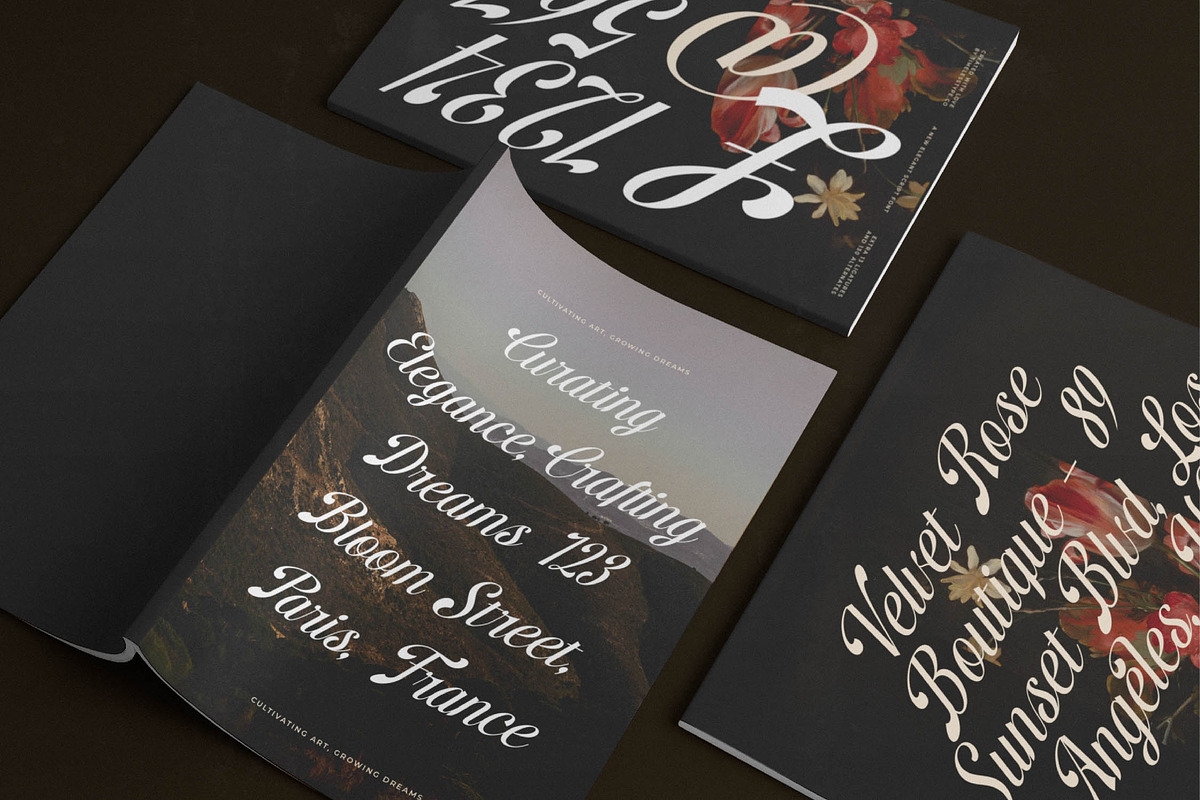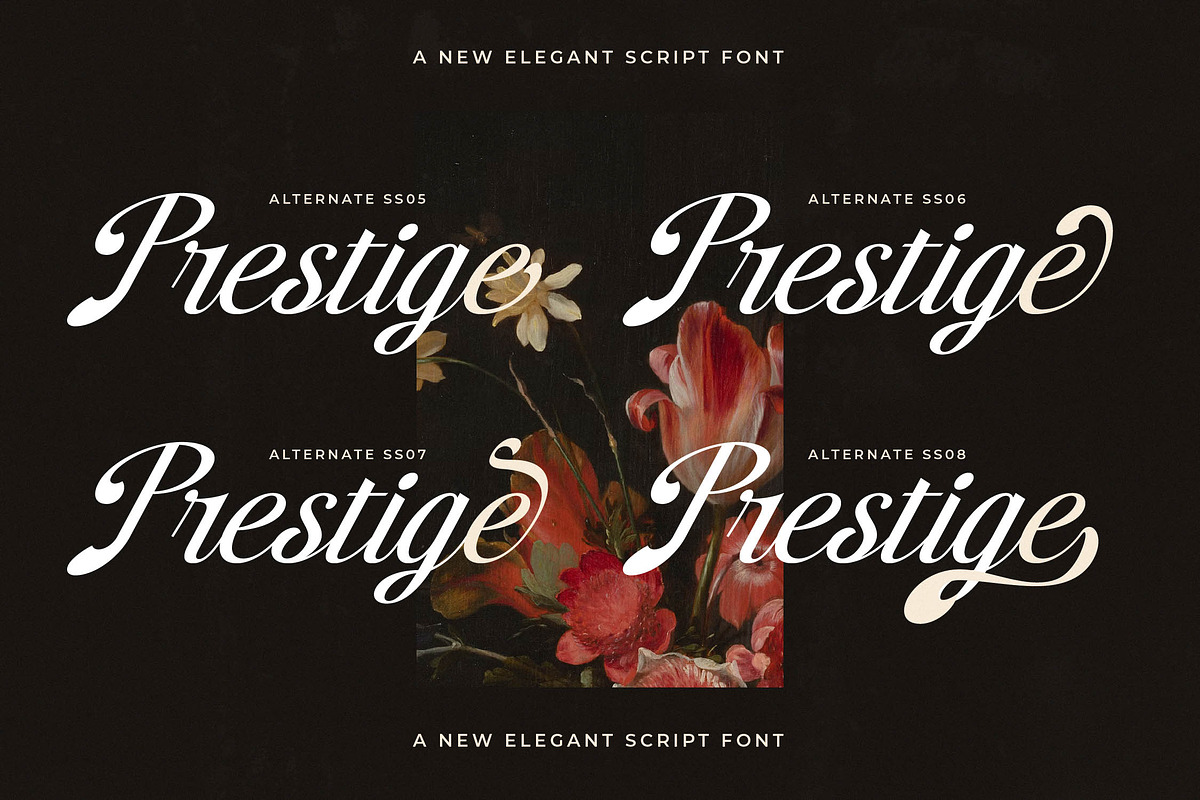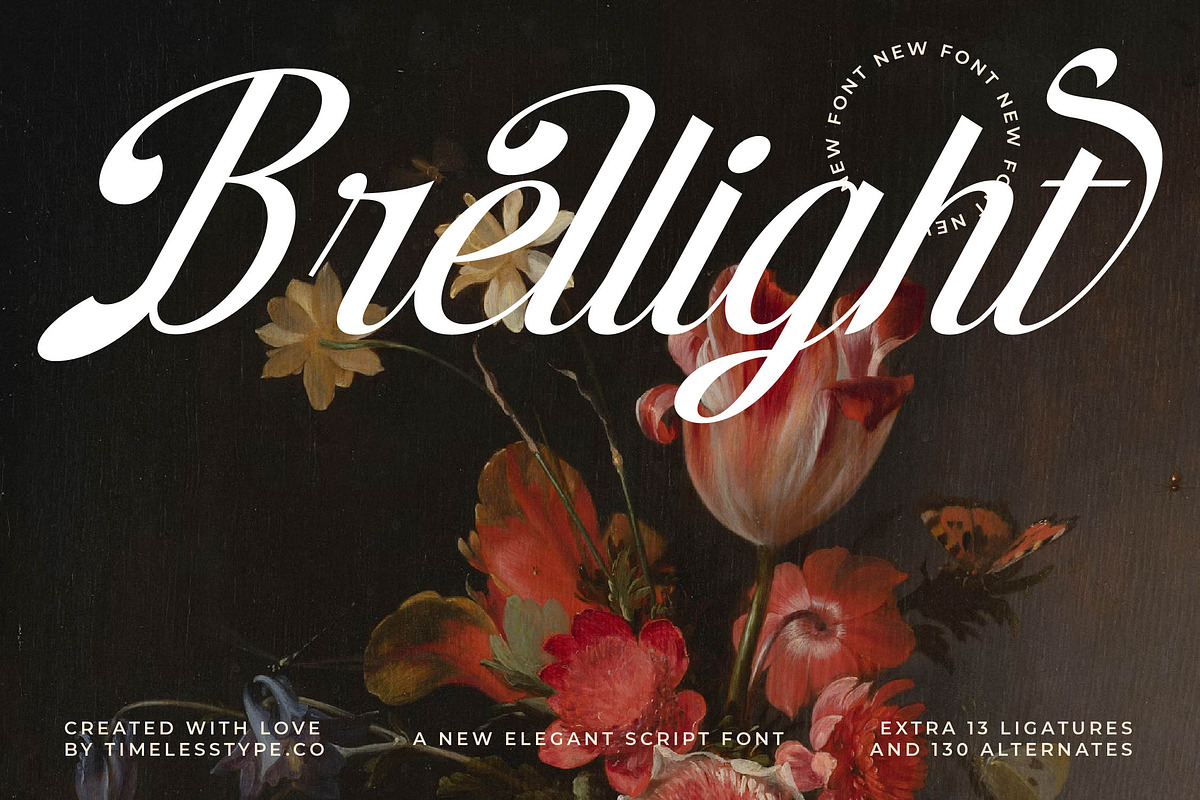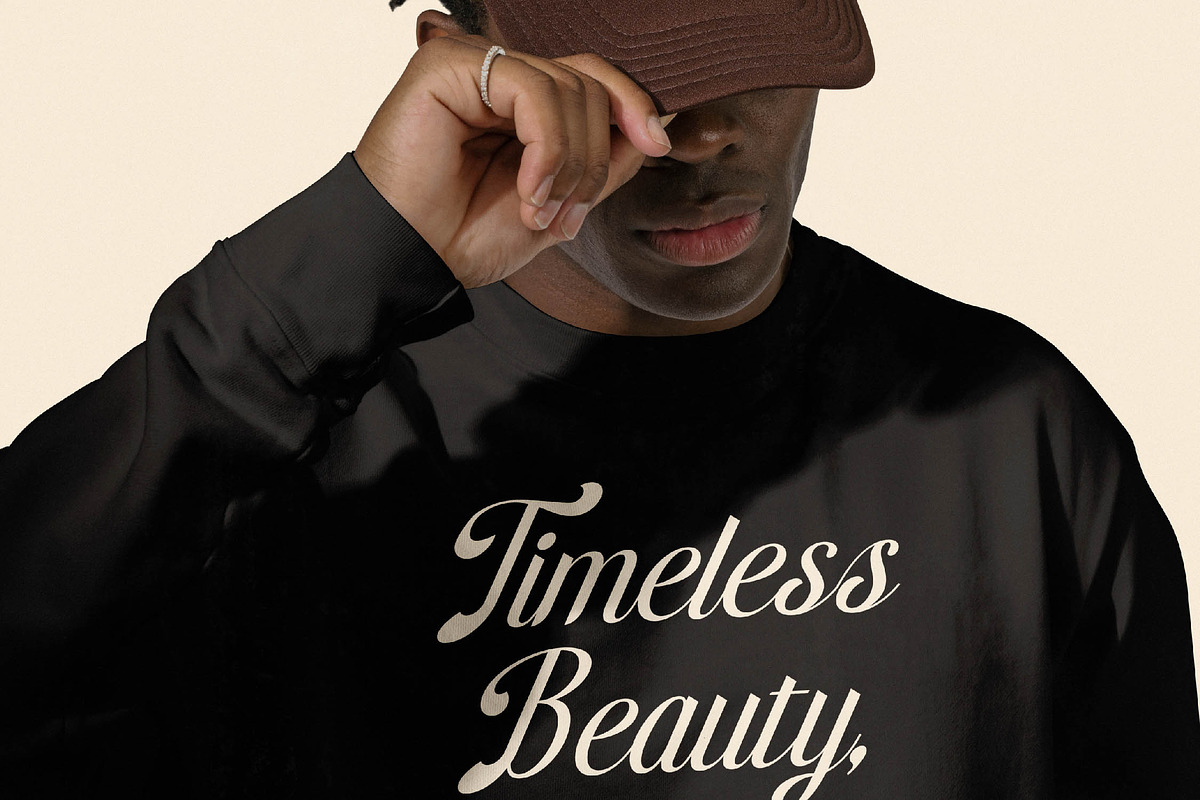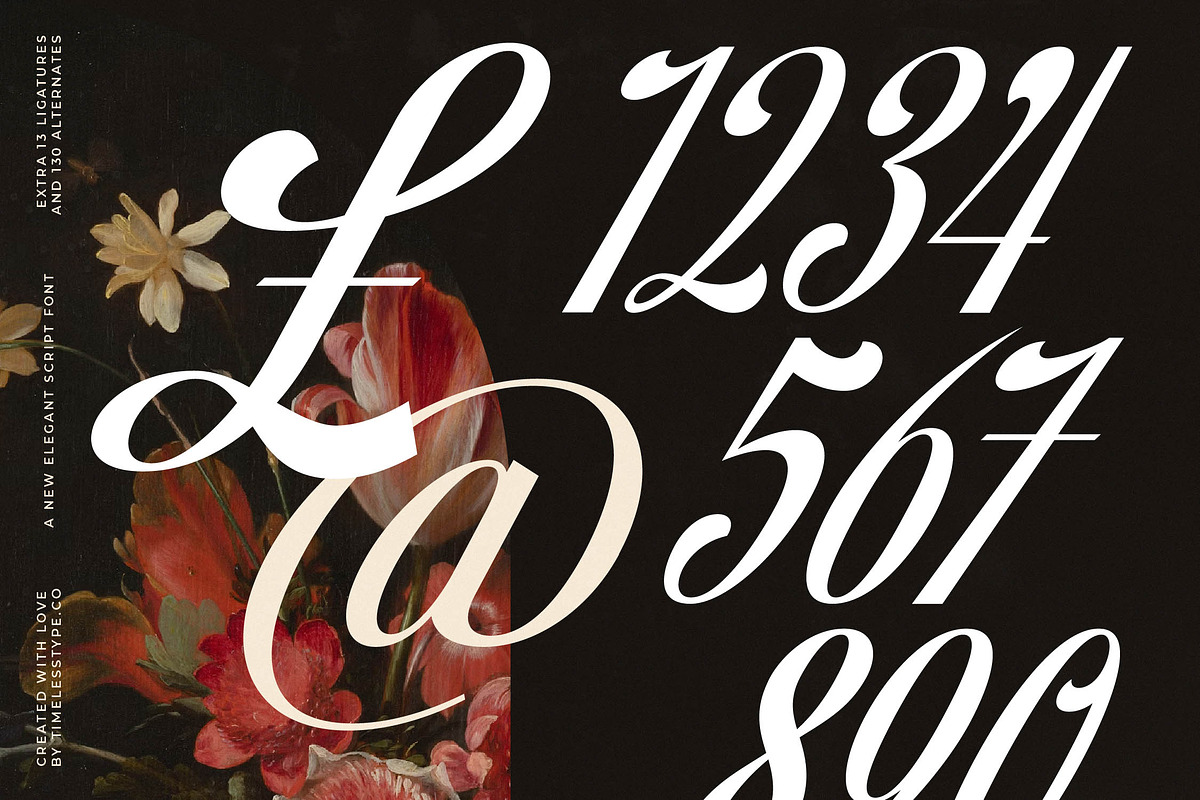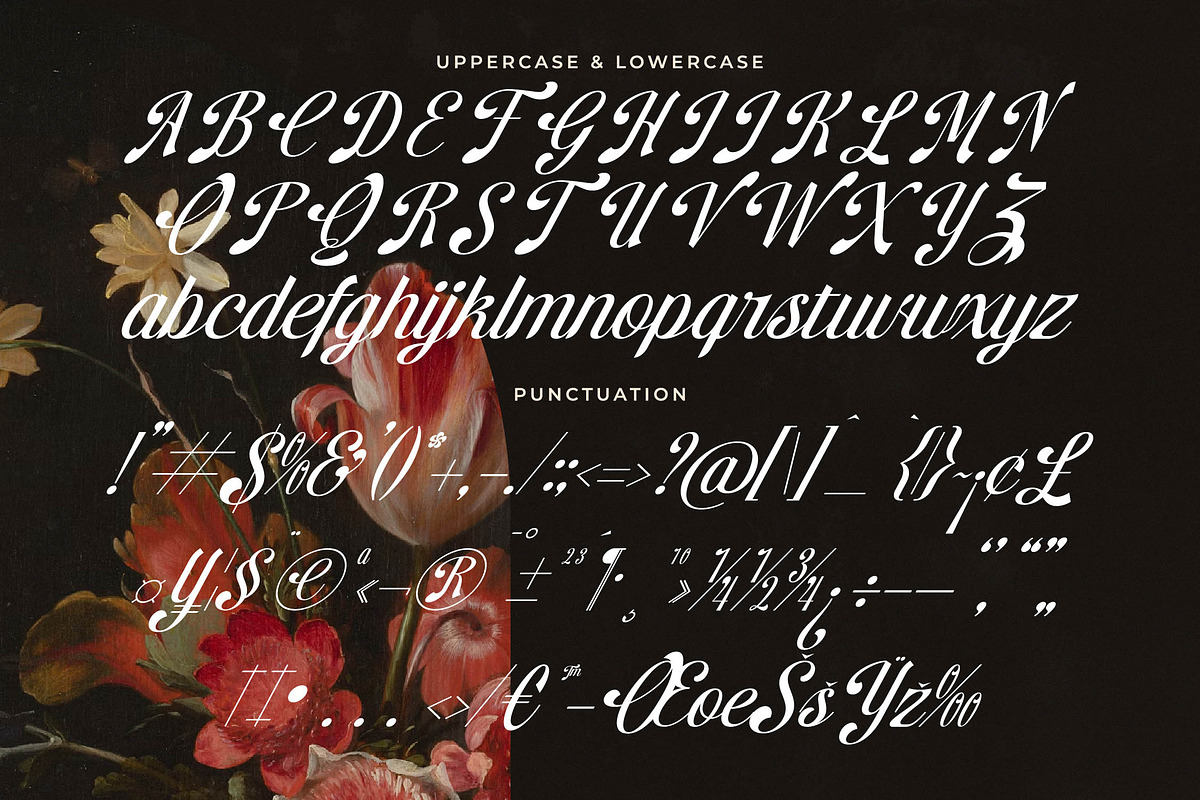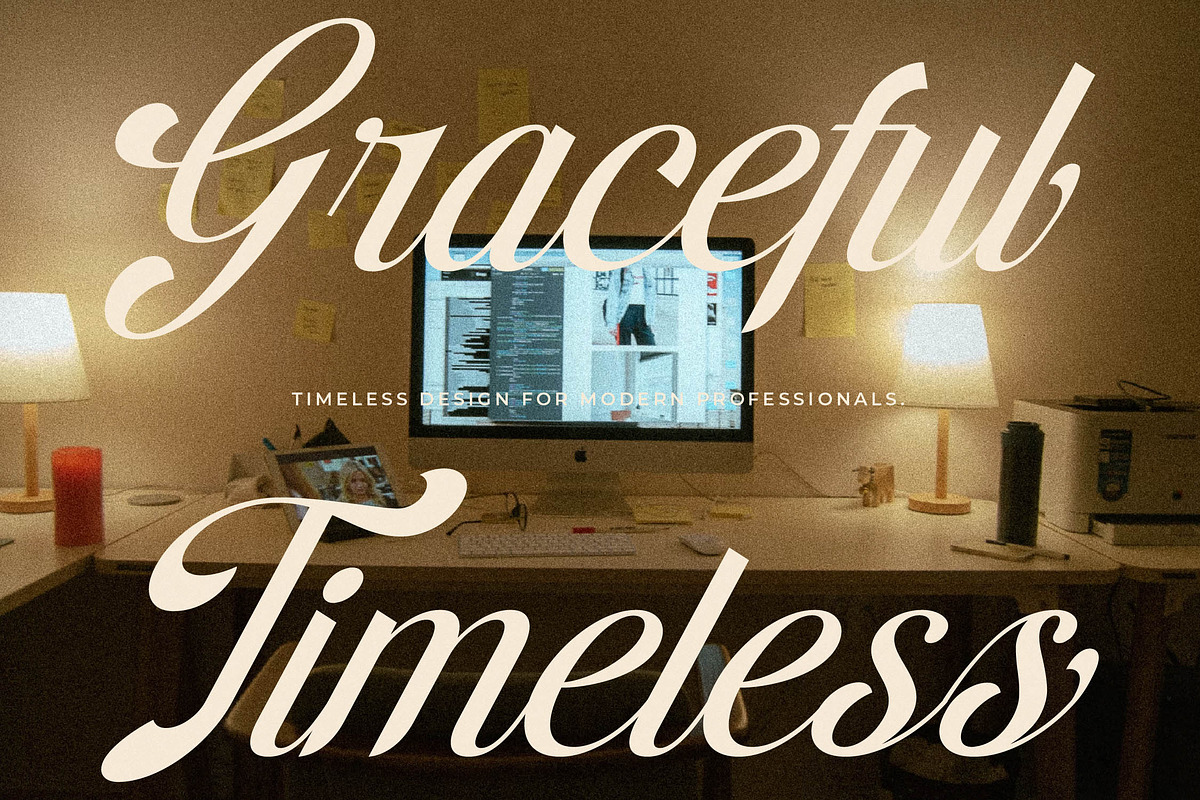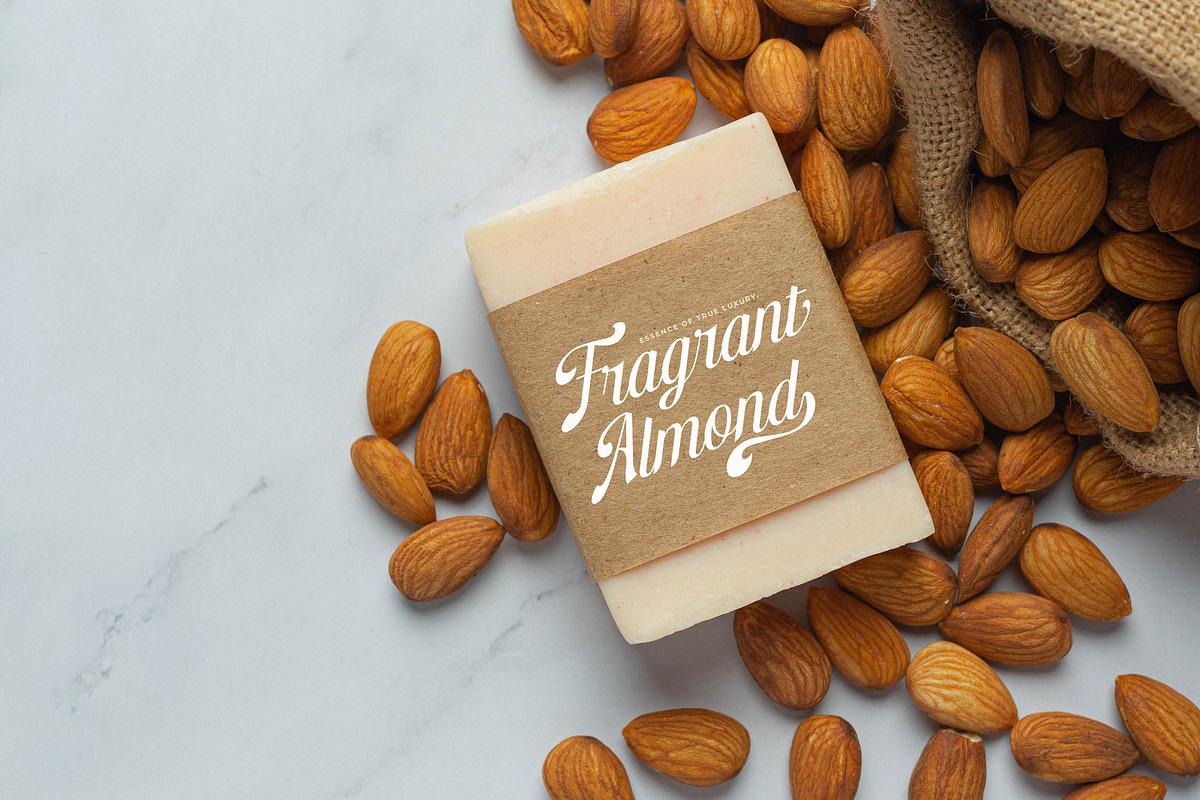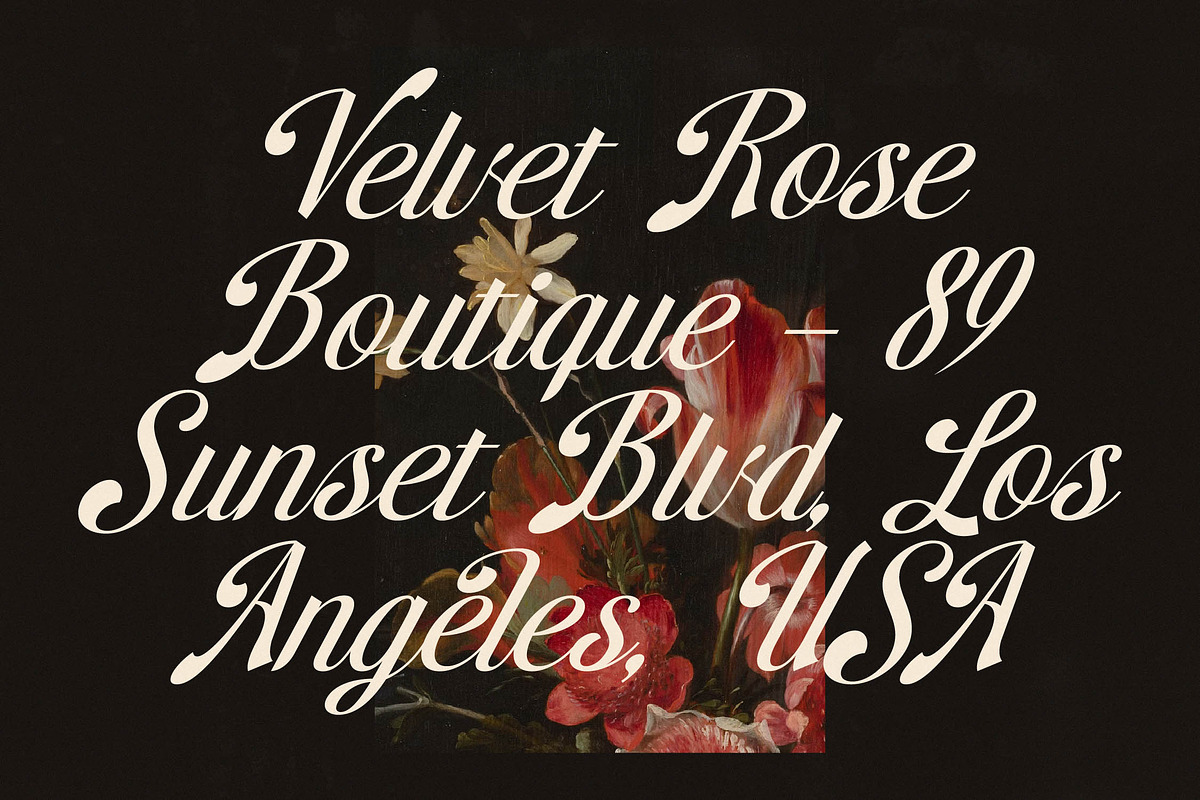
Brellight Elegant Script Font
Step into a world of poetic motion and refined grace with Brellight, a typeface that redefines the art of digital calligraphy. This font serves as a bridge between classical elegance and contemporary sophistication, making every character a visual symphony.
Inspired by the delicate strokes found in historical oil paintings and the fluid curves of botanical forms, this font evokes a sense of timelessness. It carries an atmosphere of high-art romance, designed to elevate digital projects with the tactile feel of handcrafted ink on parchment.
This typeface offers a profound luxury typography experience, blending the grace of a script with the structural integrity of a high-contrast serif. It functions as a powerful editorial font that ensures a significant branding impact, making it more than just a modern serif display but a complete visual identity solution.
Aligning perfectly with the current modern serif trend, this typeface answers the call for more emotive and expressive design. It is a staple for those seeking editorial display fonts and character-driven typography that breaks away from the sterile minimalism of the past decade.
From the delicate details of wedding stationery to the bold presence required in logo design, this font is remarkably versatile. It is the ideal choice for fashion layouts, premium packaging, and high-level branding where editorial excellence is the primary objective.
The technical depth of this font is revealed through its extensive collection of ligatures and alternates that allow for custom-tailored text. With over 130 unique characters including decorative swashes, it features full multilingual support and a complete set of international characters for global design reach.
- Ligature 13 Alternate 130